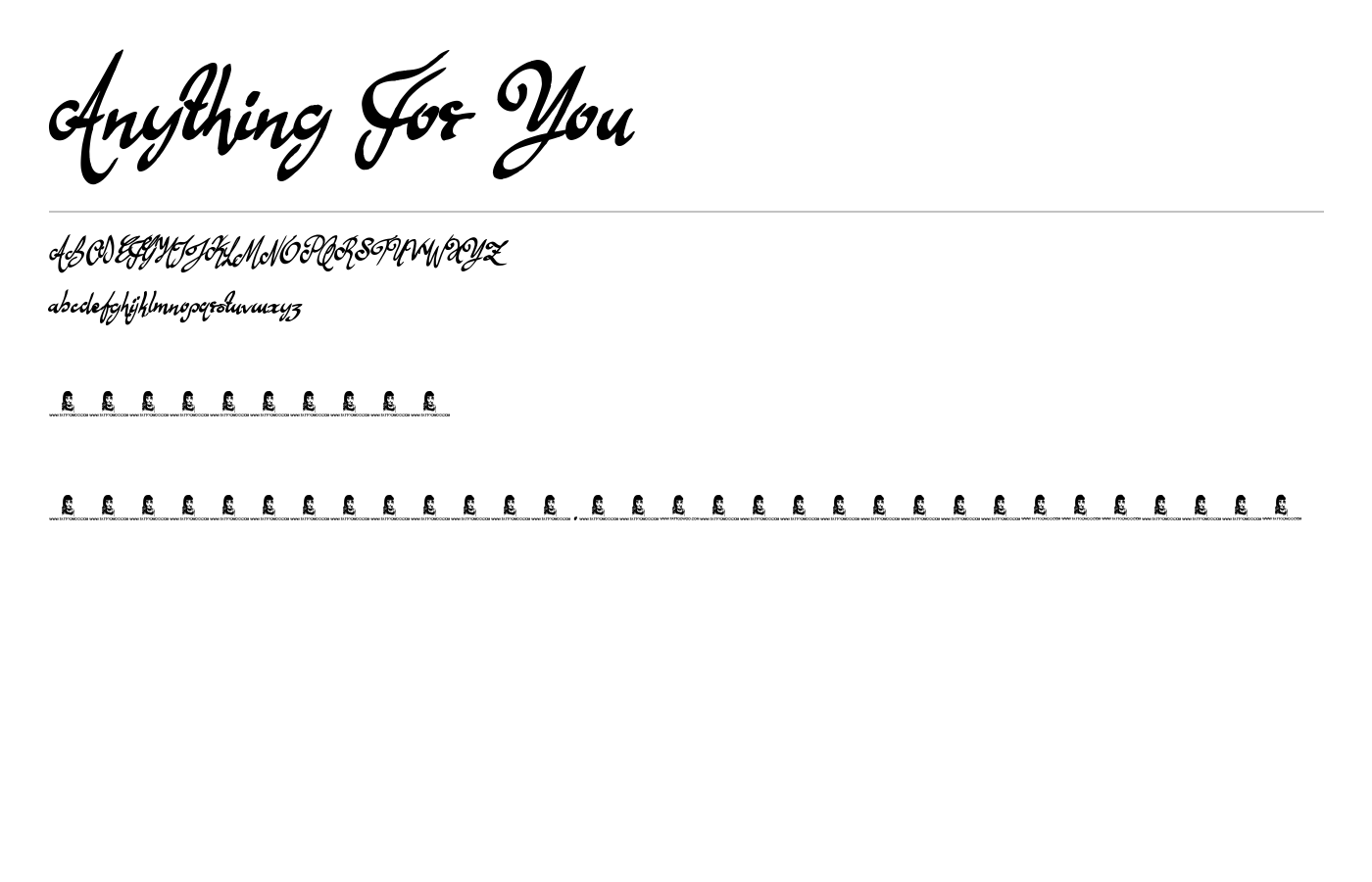
Anything For You is a bold, script-style font featuring flowing, expressive strokes with a hand-lettered feel. Its high-contrast lines and elegant loops give it a dynamic, artistic personality, making it ideal for creative projects like invitations, branding, or decorative headlines where a personal and stylish touch is desired.
Anything For You Font
About Anything For You Font
| Font family | Anything For You Font |
| Designer | Jonathan Stephen Harris |